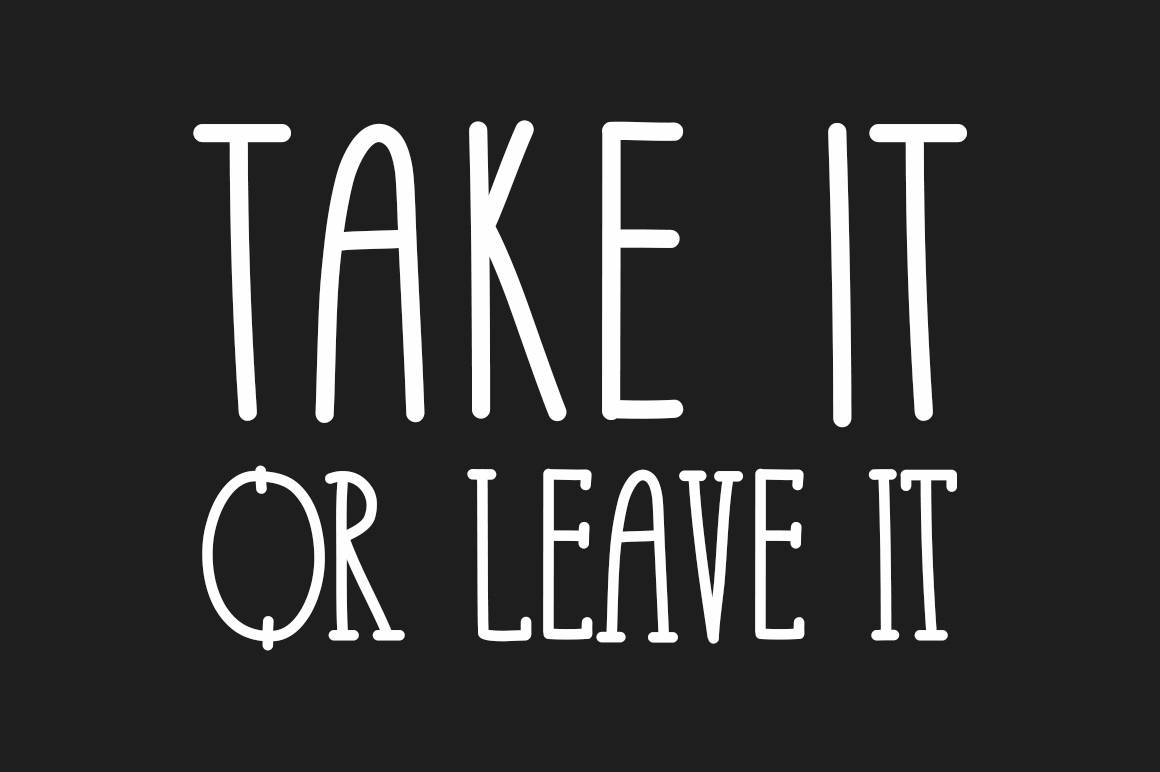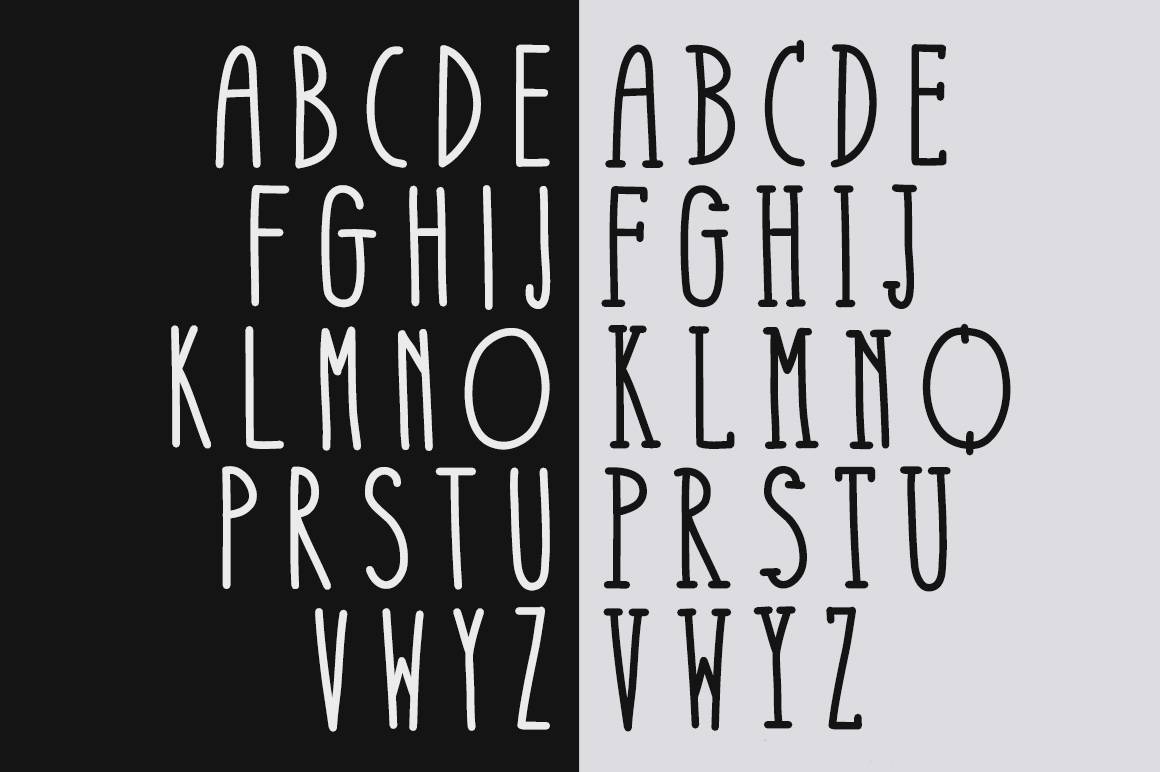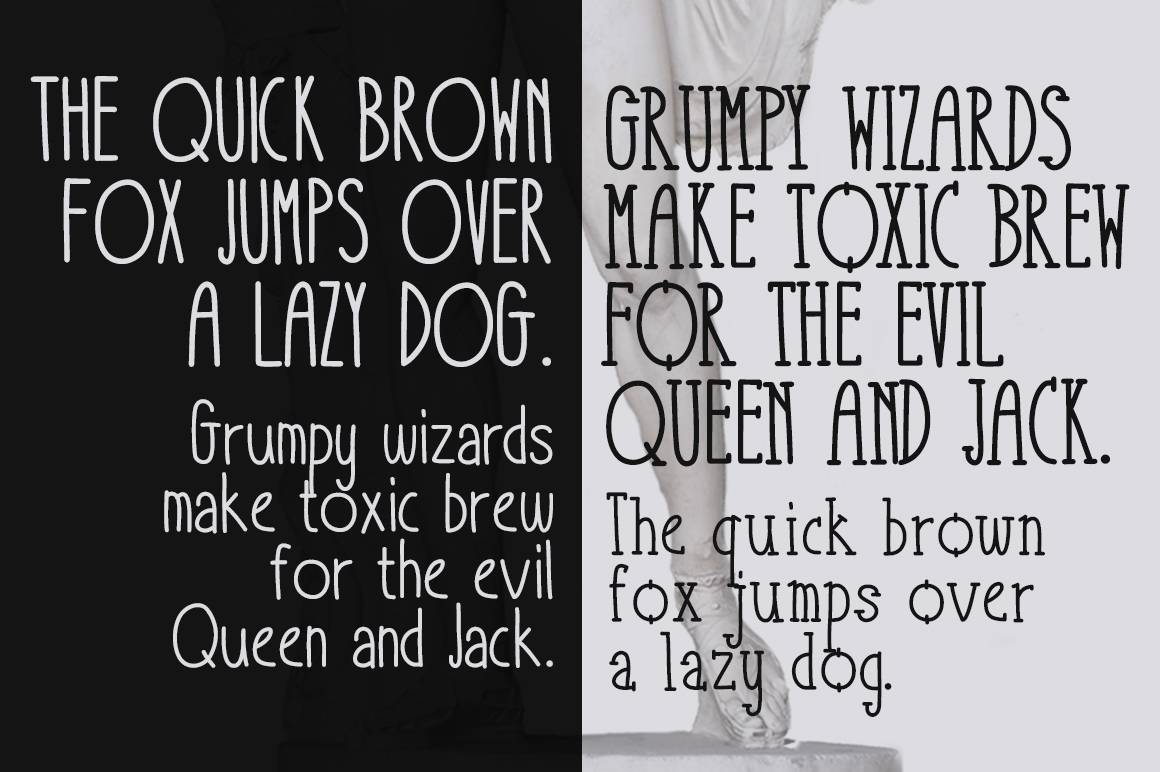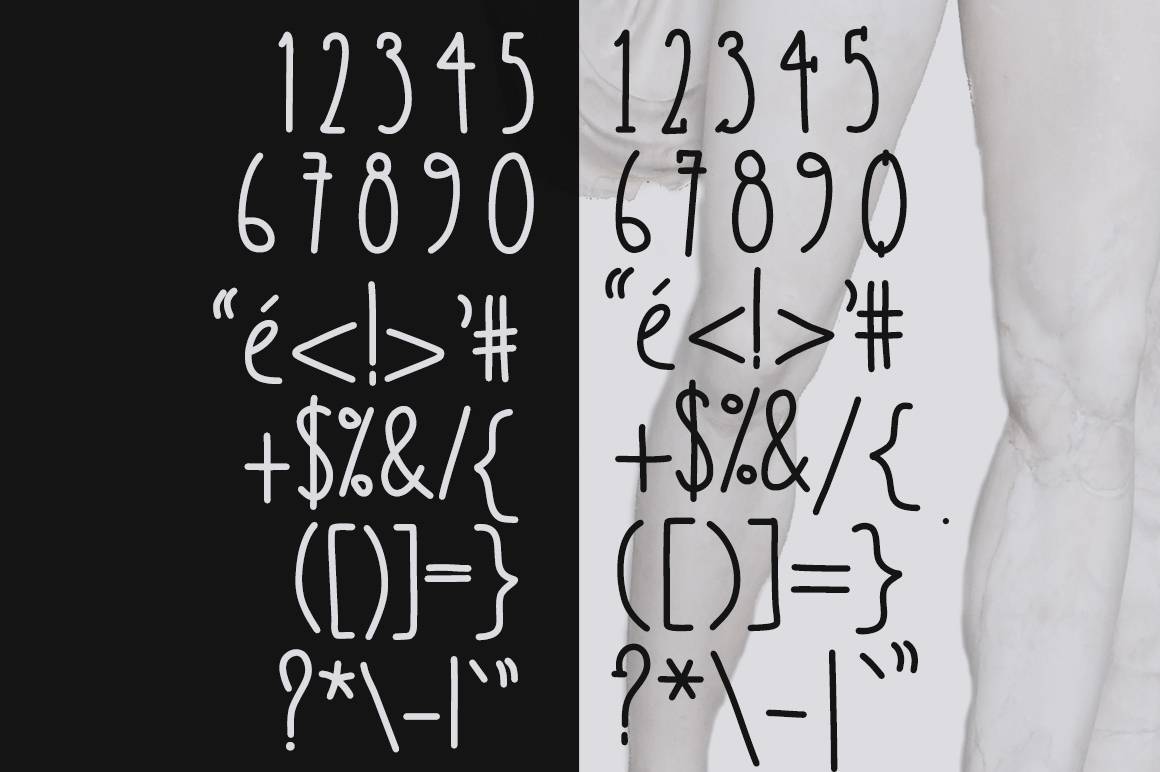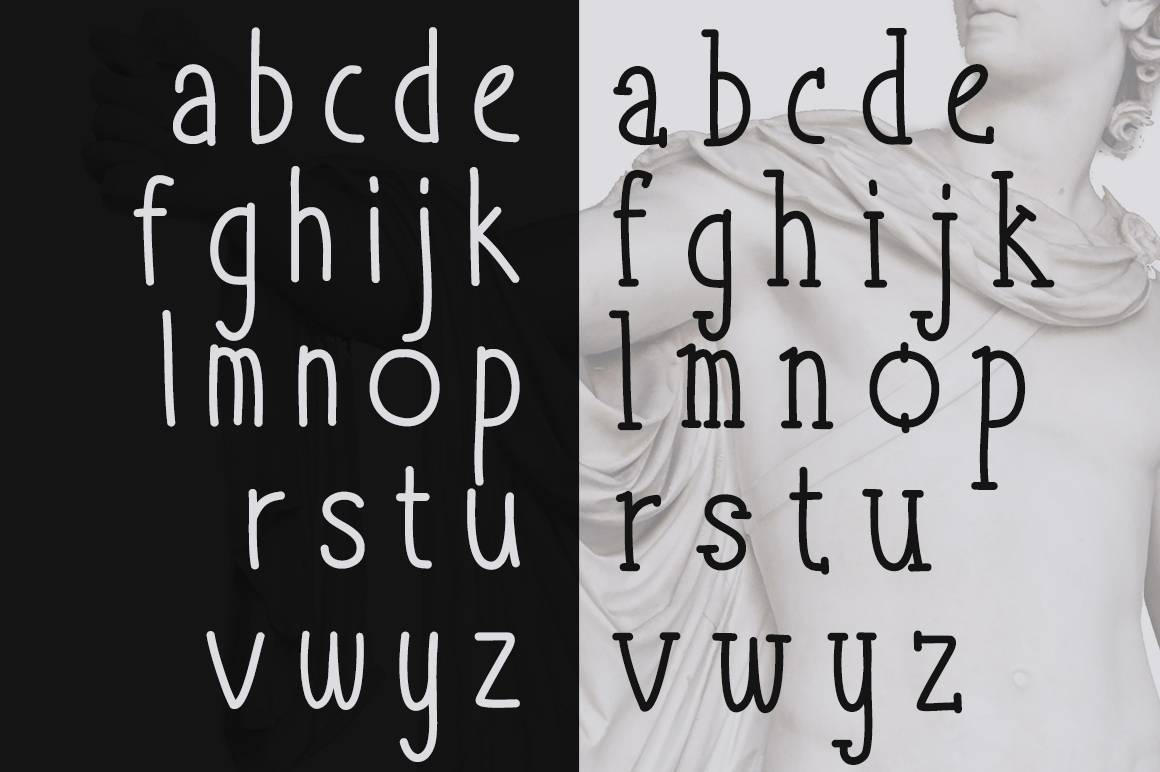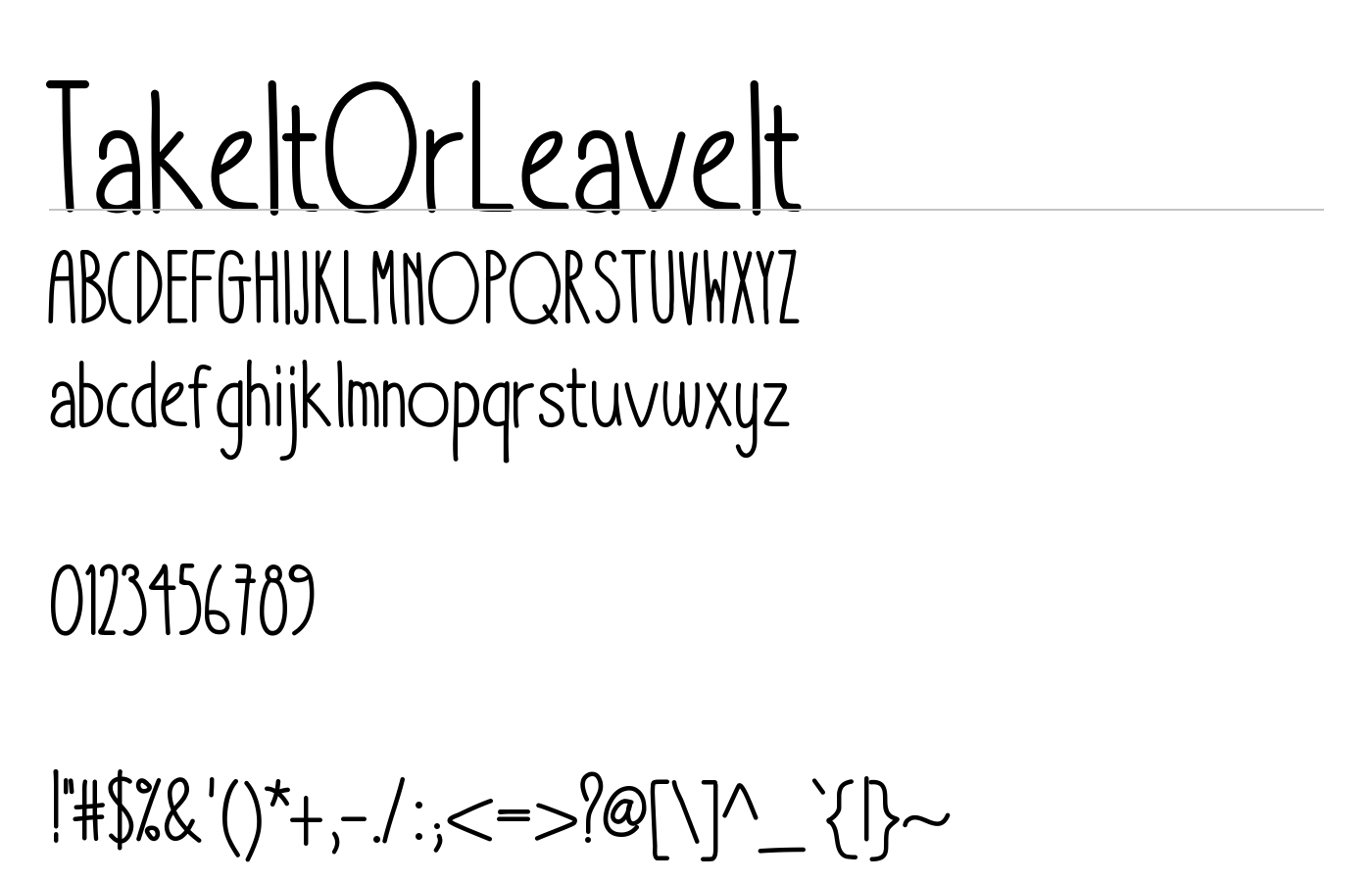
Take It or Leave It is a tall, narrow sans serif font with a playful, hand-drawn style that feels casual and approachable. Its lightweight strokes and irregular, slightly quirky letterforms give it a friendly, informal personality, making it perfect for creative projects, informal branding, or fun headlines where a personal touch is desired. This font works well in designs that aim to convey warmth and individuality without sacrificing readability.
Take It or Leave It – Font
About Take It or Leave It – Font